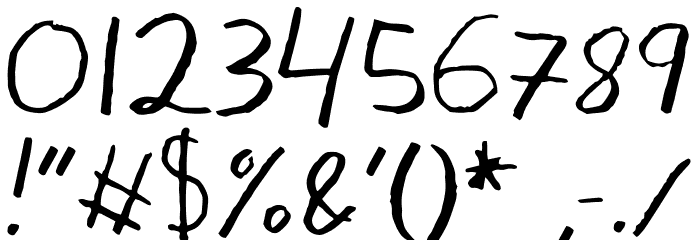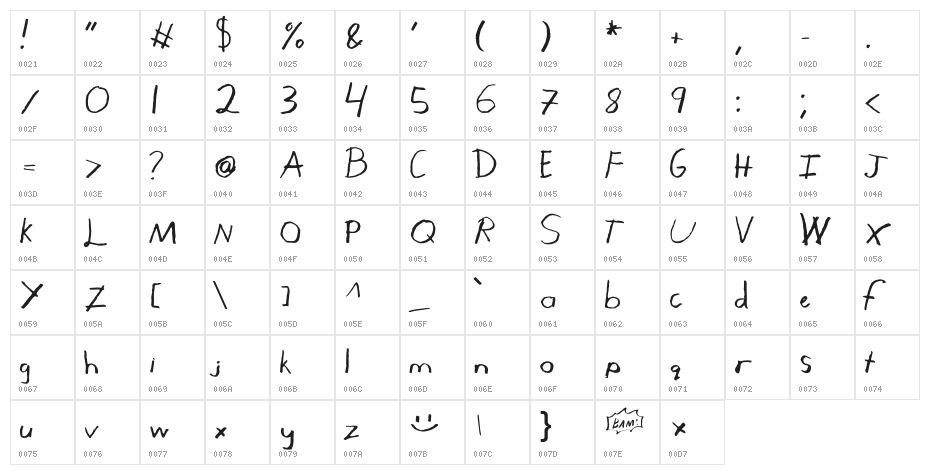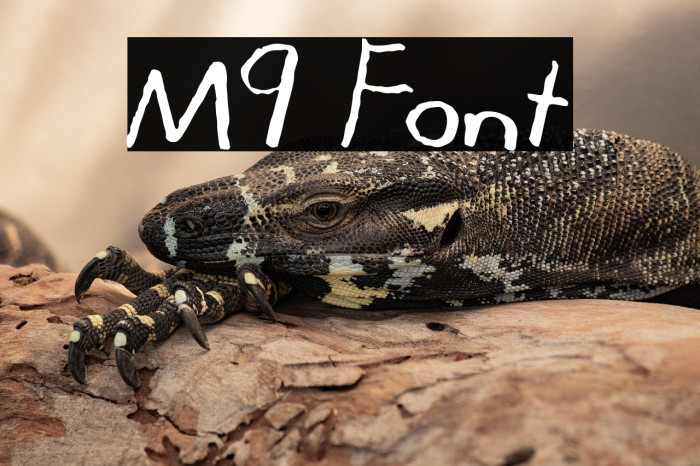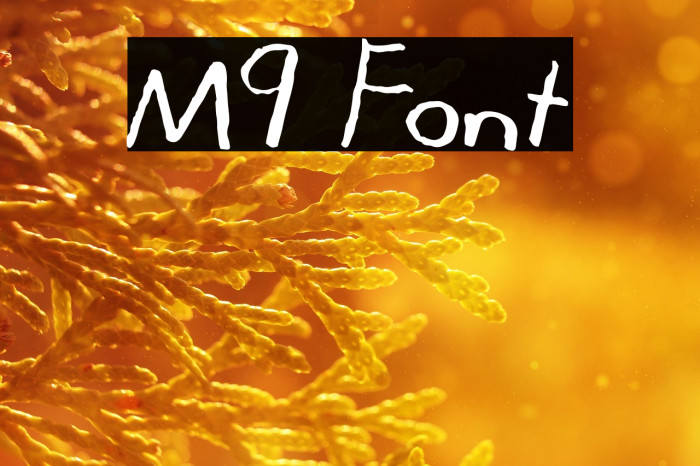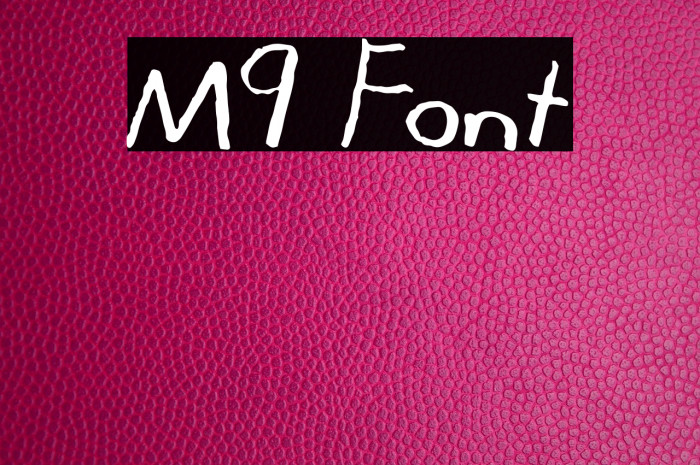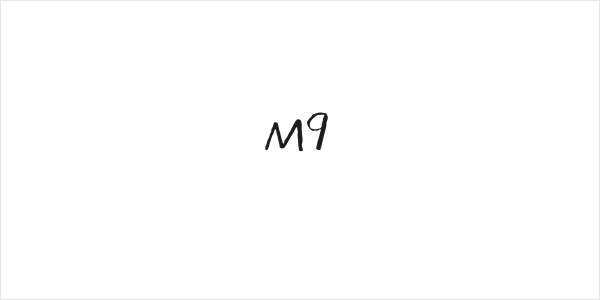
M9 Font
M9 Description
This font features a playful and informal handwritten style, characterized by its irregular strokes and slightly uneven baseline. The letters have a casual, organic feel, with varying thickness that adds a dynamic and lively touch. The uppercase and lowercase letters maintain a consistent style, while the numerals and special characters complement the overall aesthetic. This font's unique personality makes it stand out, offering a sense of creativity and spontaneity.